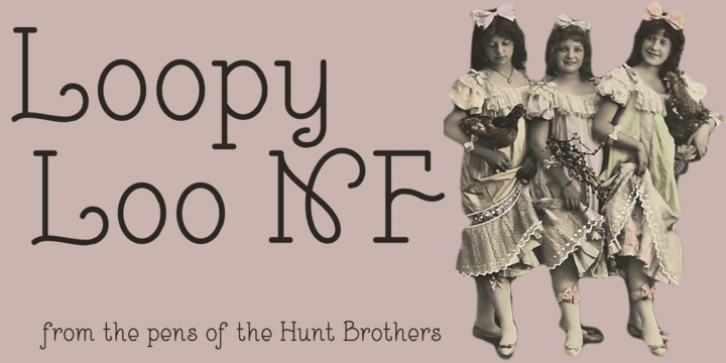
The Hunt Brothers, penmen extraordinaire, presented the pattern for this face as Upright Ornamental, it’s a little loopy and a whole lotta fun. Both versions of this font support the Latin 1262, Central European 1250, Turkish 1254 and Baltic 1257 codepages.